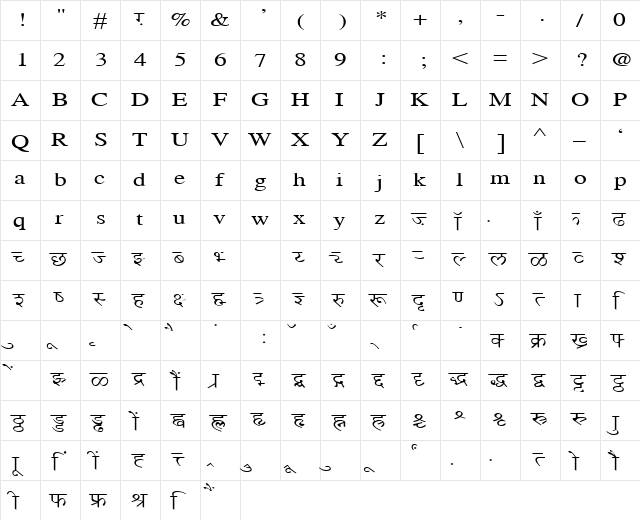
AkrutiOfficePriyaExpand Normal
Design Context for AkrutiOfficePriyaExpand Typeface
AkrutiOfficePriyaExpand offers clean, dependable letterforms without strong stylistic allegiance, making it a practical choice for designers who need flexibility.